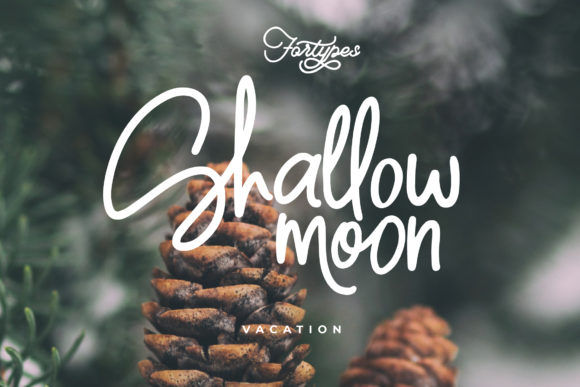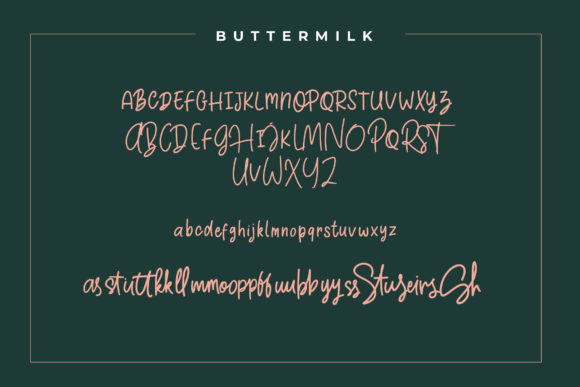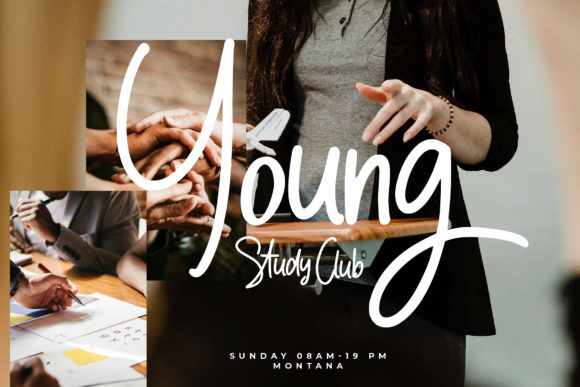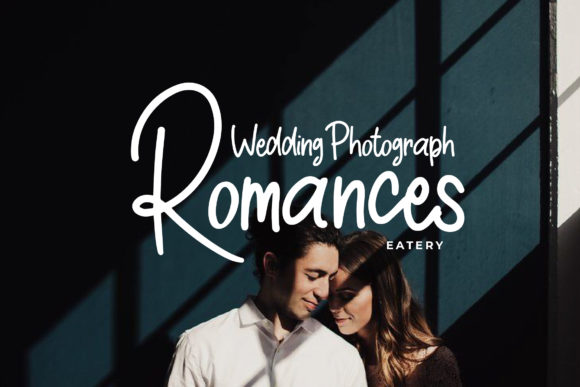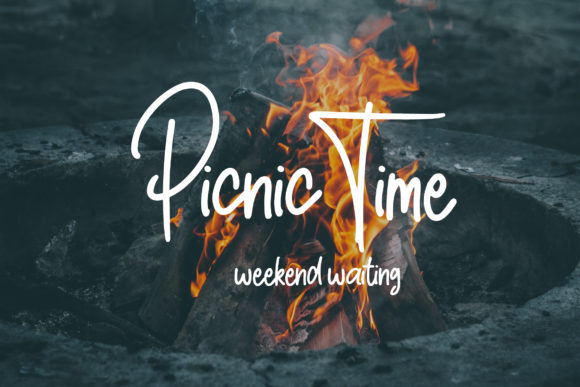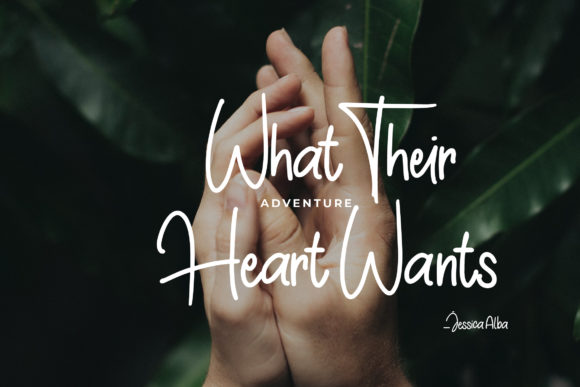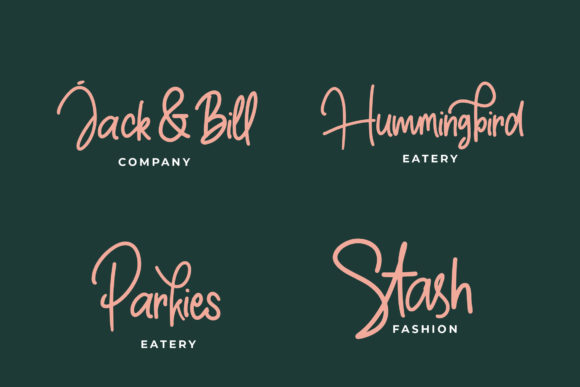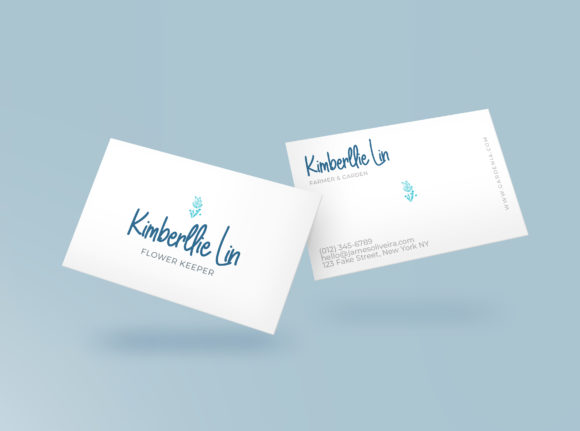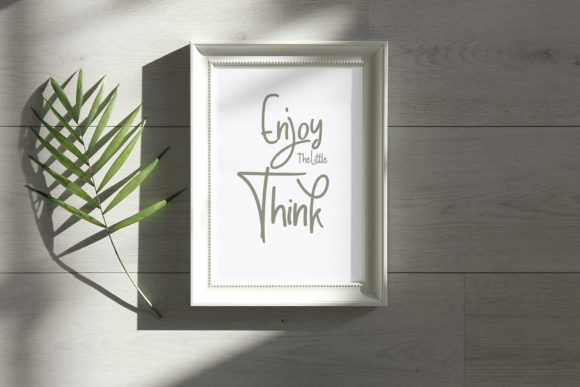
Buttermilk Font
About Buttermilk Font
Introducing Buttermilk, a sweet and friendly handwritten font that exudes warmth and charm. With its natural and unique style, Buttermilk is incredibly versatile, making it a perfect choice for a wide range of designs. The only limit is your imagination! Embrace Buttermilk and watch as it adds a touch of sweetness and authenticity to your creative projects.
Buttermilk’s sweet and friendly style creates an inviting and genuine vibe. Each letter flows with a sense of ease and care, as if crafted with a personal touch. Whether you’re working on social media graphics, quotes, invitations, or any other creative endeavor, Buttermilk brings a sense of warmth that captivates and resonates with your audience.
The font’s versatility knows no bounds. As you explore Buttermilk, you’ll discover how effortlessly it complements various design projects. From playful branding to heartfelt greeting cards, and from children’s book illustrations to inspiring posters, Buttermilk’s friendly charm enhances your creations with its unique appeal.
Imagine using Buttermilk to create delightful Instagram posts. Its sweetness and warmth draw viewers in, creating an authentic and engaging connection.
For wedding stationery with a touch of whimsy and joy, Buttermilk adds a sense of playfulness and celebration. Whether it’s save-the-date cards or thank you notes, your stationery will feel personal and endearing.
In the digital realm, Buttermilk adds a friendly and approachable element to your website’s typography. It creates a welcoming atmosphere, inviting visitors to explore and connect.
Greeting cards and posters become heartfelt expressions of emotion with Buttermilk. The font’s sweet and friendly script conveys sincerity, making your messages truly stand out.
In conclusion, Buttermilk is more than just a font; it’s an embodiment of sweetness and charm. With its natural and unique style, Buttermilk becomes an invaluable asset for all your design projects. Embrace the friendly appeal of Buttermilk and watch as your creations come alive with authenticity and warmth. Let your imagination soar in the sweet and friendly embrace of Buttermilk, the handwritten font that invites you to create with limitless possibilities.